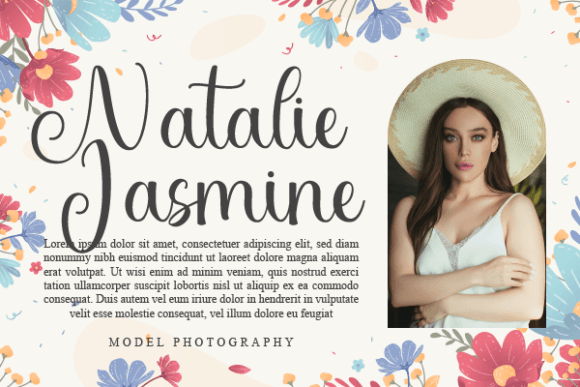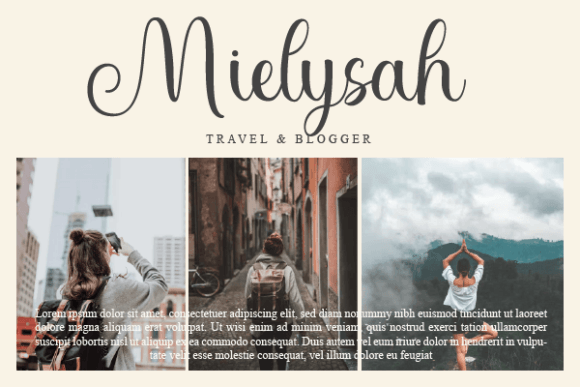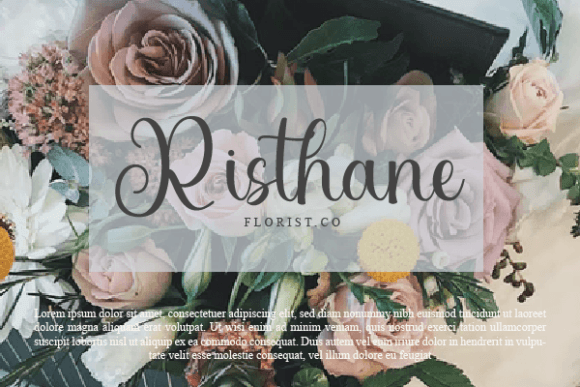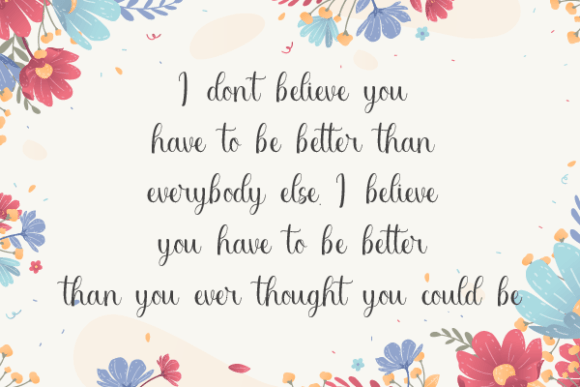
Discover the Elegance of Gabrielle Sutherland Font: Elevate Your Designs with Handwritten Flair
In the world of digital design, fonts play a pivotal role in conveying messages, evoking emotions, and creating lasting impressions. Among the myriad of fonts available, the Gabrielle Sutherland Font stands out for its unique blend of elegance, sophistication, and handwritten charm. Designed by Gabrielle Sutherland, this font has become a favorite among designers, crafters, and DIY enthusiasts looking to add a personal touch to their projects.
The Versatility of Gabrielle Sutherland Font
Gabrielle Sutherland’s latest style letters are not just beautiful; they are also incredibly versatile. Whether you’re working on wall displays, wedding invitations, social media post logos, advertisements, product packaging, product designs, labels, photography, watermarks, invitations, stationery, or any project that requires a handwritten taste, this font is perfect. Its adaptability makes it a go-to choice for various applications, from professional branding to personal crafts.
Why Choose Gabrielle Sutherland Font?
There are several reasons why designers and crafters are gravitating towards the Gabrielle Sutherland Font:
- Unique Handwritten Style: The font boasts a distinctive handwritten style that adds a personal and intimate feel to any project. Its uniqueness ensures that your designs stand out in a crowded digital landscape.
- Elegance and Sophistication: The elegance of the Gabrielle Sutherland Font makes it suitable for high-end branding, weddings, and other sophisticated projects. It brings a level of refinement and class that is hard to achieve with standard fonts.
- Easy to Read: Despite its elegant and artistic nature, the font remains highly legible, making it practical for use in a variety of contexts, from large-scale displays to small product labels.
- Digital and Print Friendly: The Gabrielle Sutherland Font is designed to look great both on screen and in print. This versatility is invaluable for designers who work across multiple mediums.
Applications of Gabrielle Sutherland Font
The applications of the Gabrielle Sutherland Font are vast and varied. Here are some popular uses:
- Wedding and Event Planning: Create stunning wedding invitations, place cards, and event signage that reflect your personal style or brand.
- Branding and Marketing: Elevate your brand with elegant logos, social media graphics, and advertisement designs that capture the essence of your business.
- Product Design: Add a touch of sophistication to product packaging, labels, and watermarks, making your products stand out.
- Stationery and DIY Projects: Personalize your stationery, journals, and craft projects with a font that feels both luxurious and approachable.
Tips for Using Gabrielle Sutherland Font
To get the most out of the Gabrielle Sutherland Font, consider the following tips:
- Mix and Match: Combine the font with other design elements, such as images and textures, to create visually appealing compositions.
- Play with Sizes: Experiment with different font sizes to create hierarchy and emphasis in your designs.
- Color Matters: Choose colors that complement the font and enhance its elegance. Soft pastels, rich jewel tones, and classic black and white can all work beautifully.
The Gabrielle Sutherland Font is a valuable addition to any designer’s or crafter’s toolkit. Its unique blend of handwritten charm, elegance, and versatility makes it an ideal choice for a wide range of projects. Whether you’re looking to create sophisticated branding, beautiful wedding invitations, or personalized crafts, this font can help you achieve your design goals with style and flair.
So, why settle for ordinary when you can create something extraordinary with the Gabrielle Sutherland Font? Explore its possibilities today and discover how it can elevate your designs to new heights.